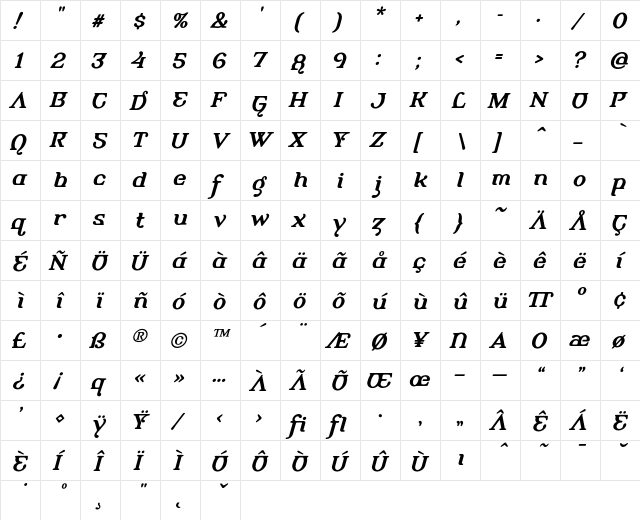
AlembicBeta BoldItalicTwo
Design Context for AlembicBeta Typeface
AlembicBeta is a composed and adaptable typeface that performs quietly and consistently across a wide range of design contexts. Its italic angle brings a sense of urgency and motion to the letterforms. The heavy weight commands attention and anchors typographic hierarchies.
Pro Tip: Try AlembicBeta for annotation and caption copy alongside an upright companion — the contrast in angle creates a dynamic but ordered typographic system.